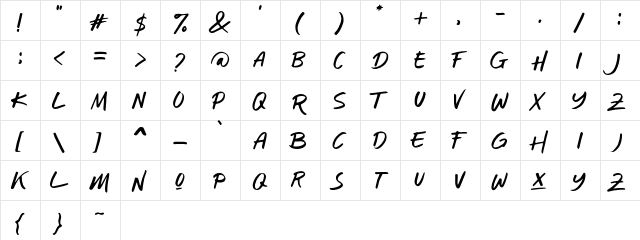
Blue Jones DEMO
Design Context for Blue Jones Typeface
Blue Jones is a composed and adaptable typeface that performs quietly and consistently across a wide range of design contexts.
Pro Tip: Pair Blue Jones with a font of contrasting weight or personality to build a more expressive typographic hierarchy.